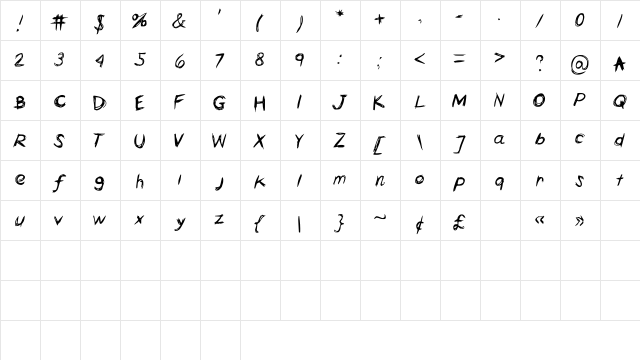
HorrorScribbles Medium
Design Context for HorrorScribbles Typeface
HorrorScribbles carries an unsettling edge — its distorted letterforms are built to unsettle, perfectly suited to horror, Halloween, and dark creative work.
Ideal for Halloween projects, horror film titles, haunted house signage, and dark editorial design.
Font Pairing: Pair with a clean neutral sans-serif for body copy to let HorrorScribbles's character lead without overwhelming the composition.
Pro Tip: HorrorScribbles works best as a headline or focal element. Pair it against plain, neutral body text to amplify the contrast.